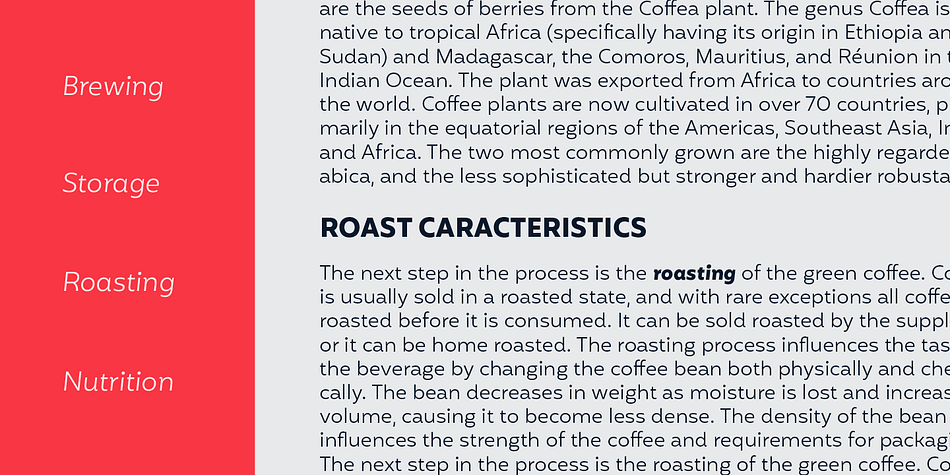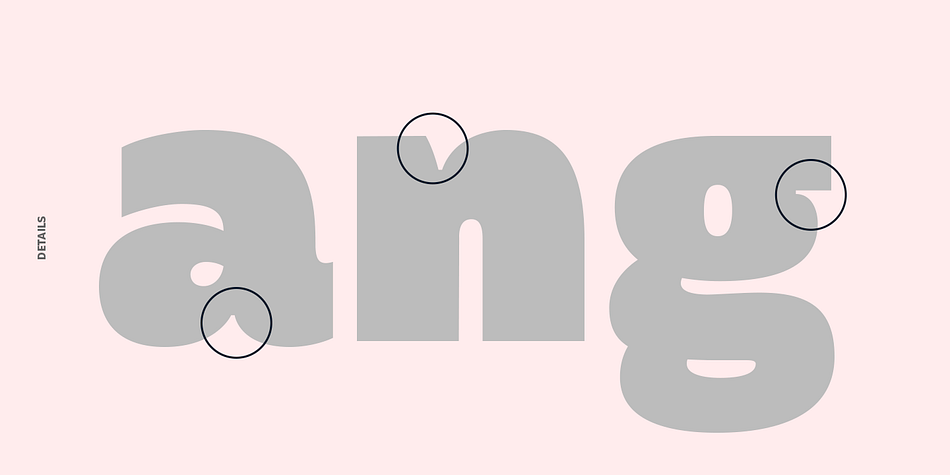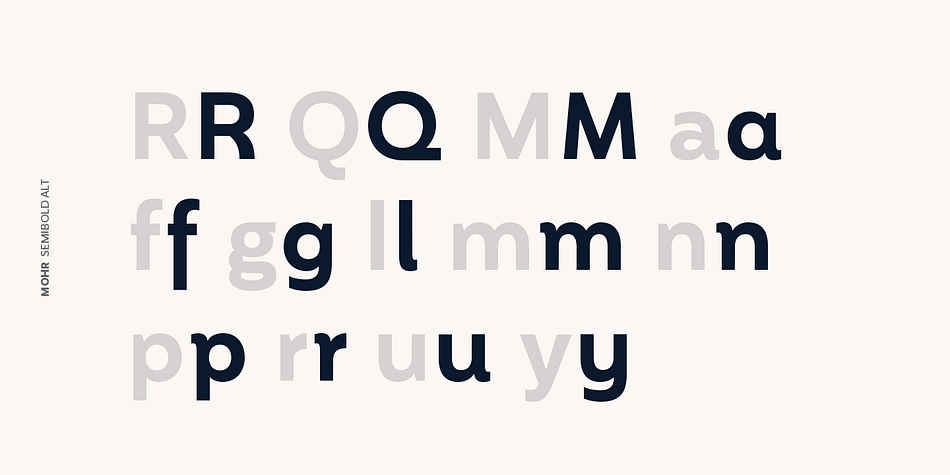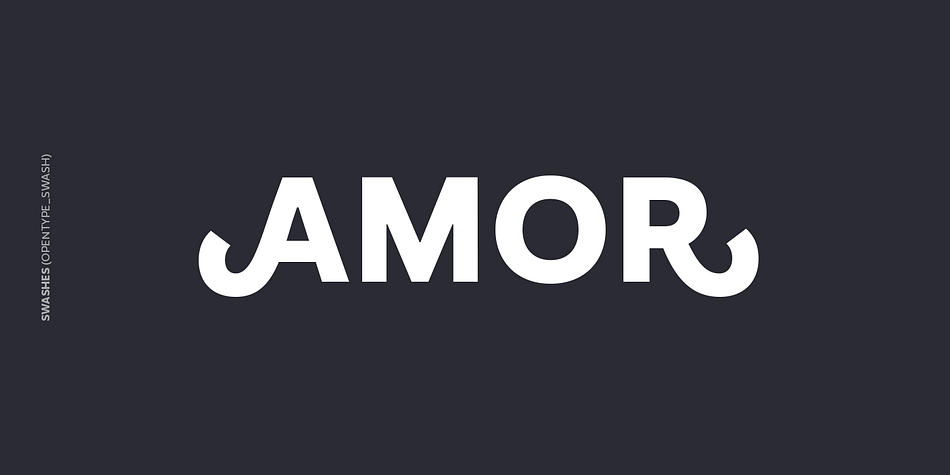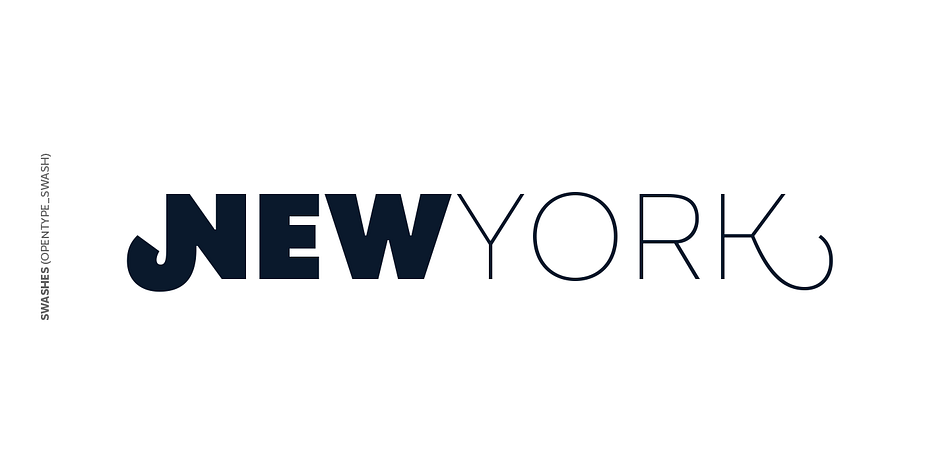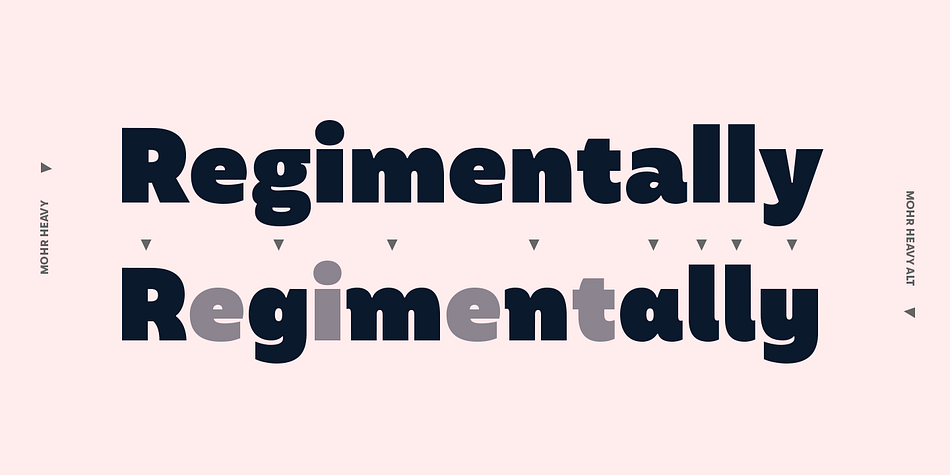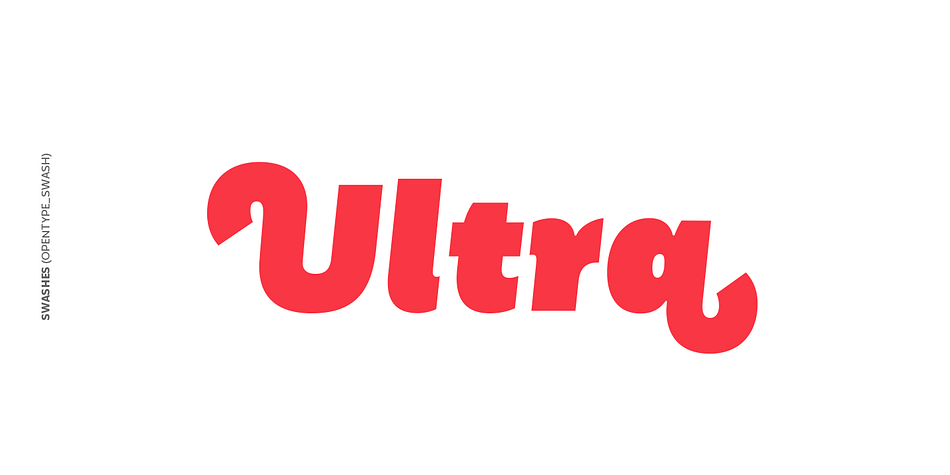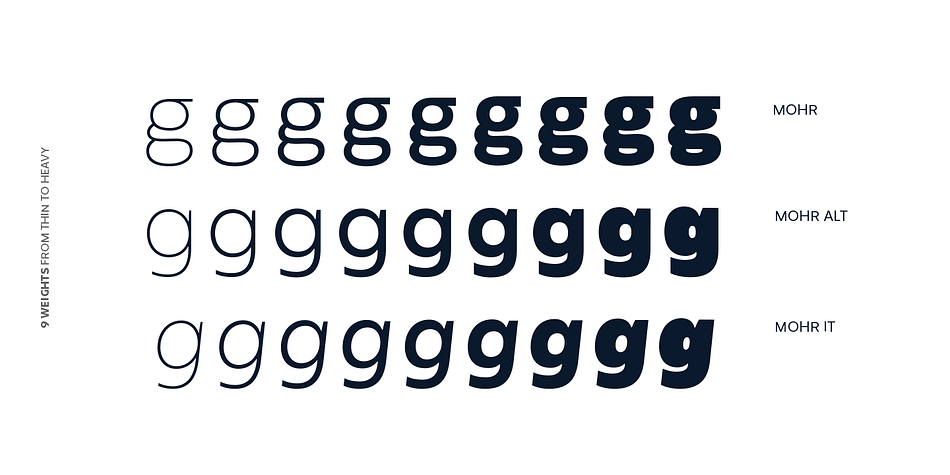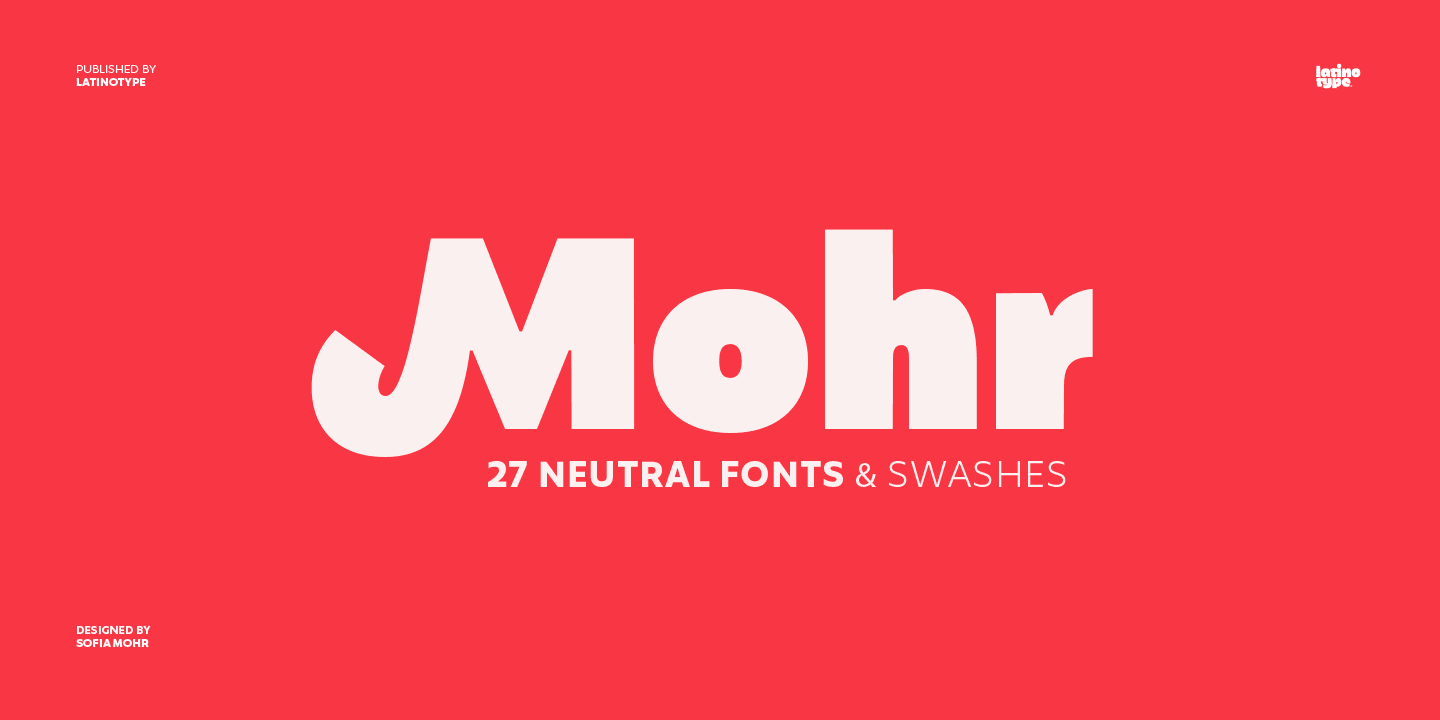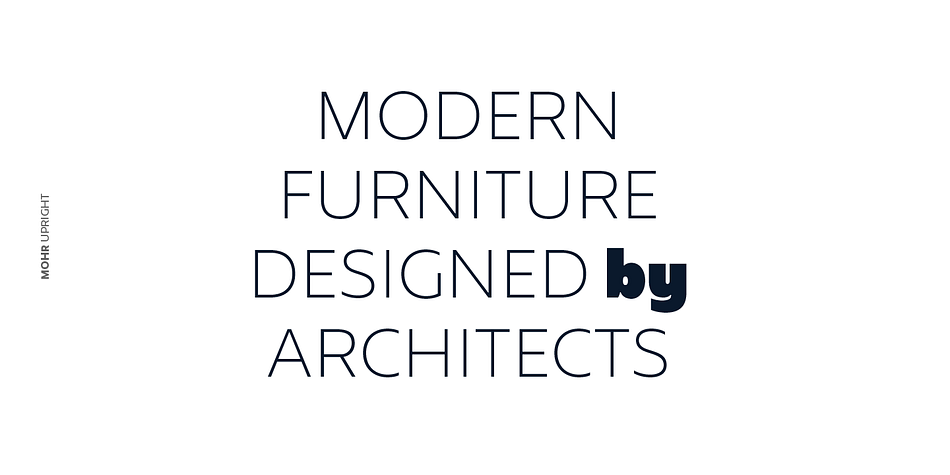
Designed by Sofia Mohr, Mohr is a sans serif font family. This typeface has twenty-seven styles and was published by Latinotype.
Mohr is a neutral, versatile and contemporary font based on some characteristics found in humanist sans serif typefaces. Mohr’s features, together with its design characteristics, make it suitable for a wide range of applications, from display use to small text.
The Mohr family comes in three versions: normal, alt and italic, each with 9 font weights, from Thin to Heavy, resulting in a total of 27 fonts.
Mohr also includes initial and terminal swashes in most of the uppercase and lowercase characters. This gives the font a unique personality and provides a greater range of uses such as branding and packaging.